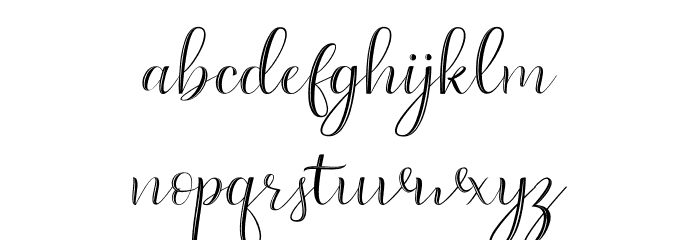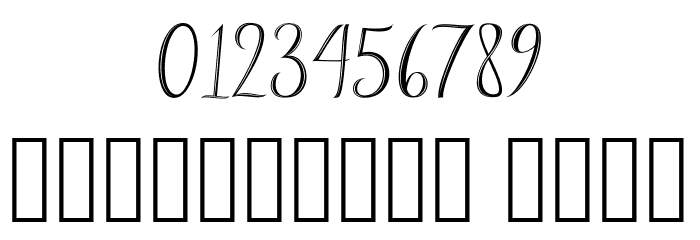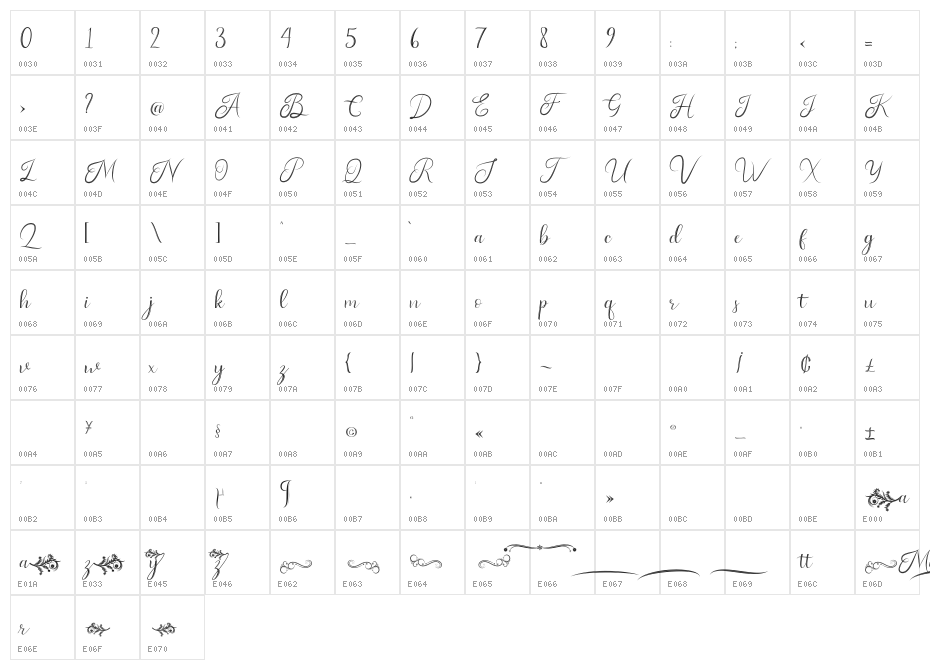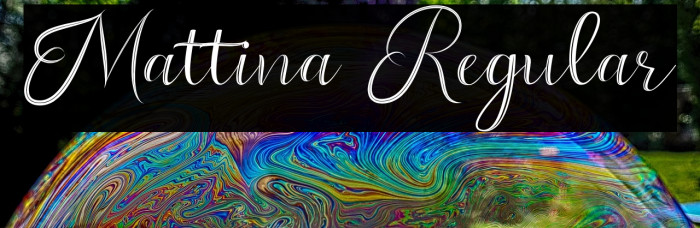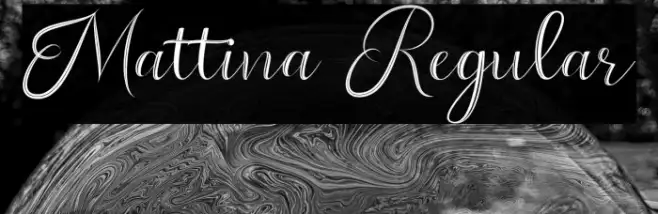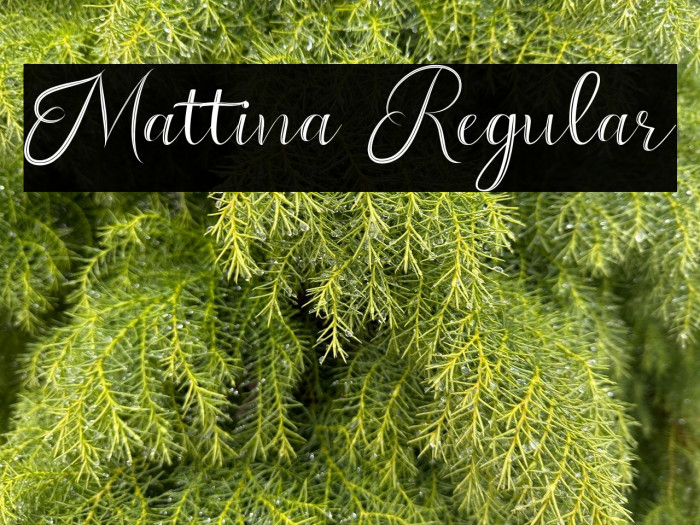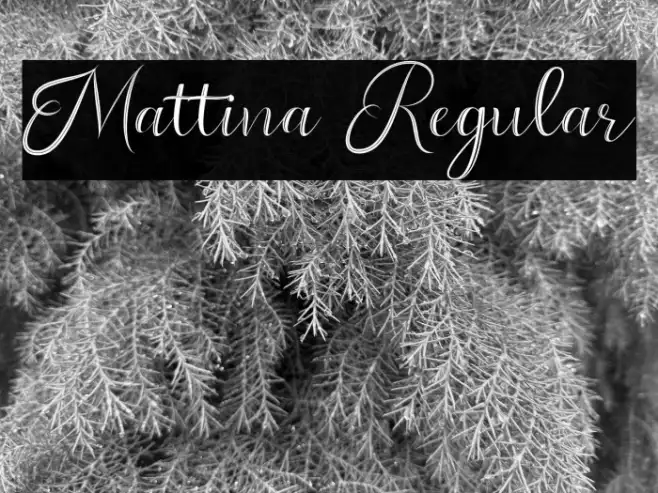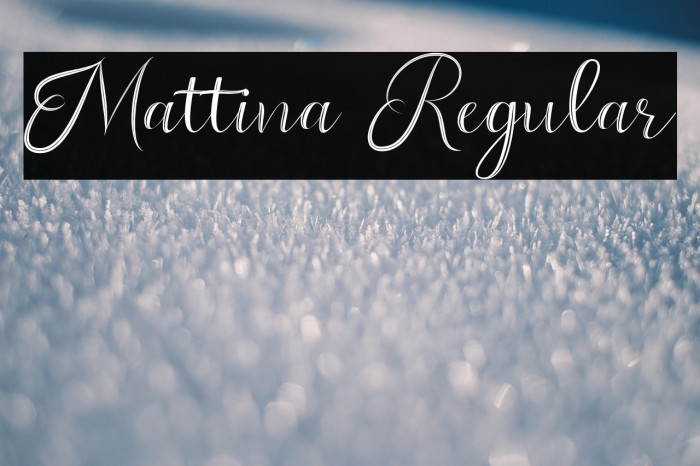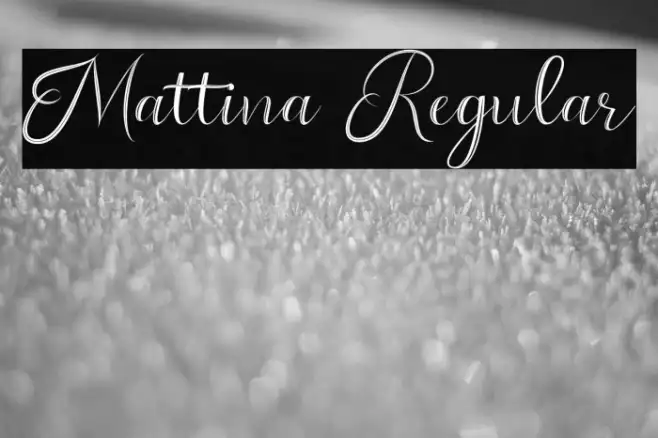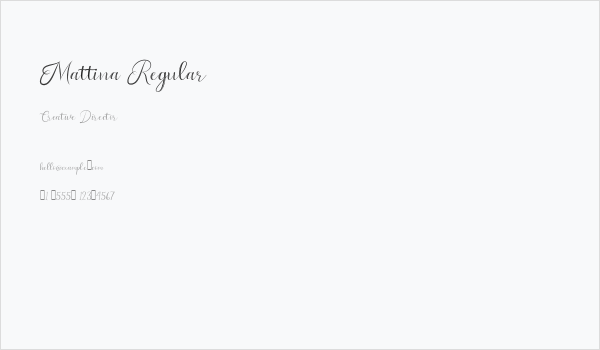
Mattina Regular Font
This elegant script font features flowing, cursive letterforms with a refined and sophisticated appearance. The uppercase letters exhibit graceful loops and swashes, while the lowercase characters maintain a consistent, fluid style that enhances readability. The numerals are designed with a similar flair, ensuring a cohesive look across all characters. The font's delicate strokes and balanced proportions make it suitable for a variety of design applications. Its overall aesthetic is both classic and modern, offering versatility for creative projects.
An elegant script font with flowing, cursive letterforms and refined style.
- Proposed Projects: Ideal for wedding invitations, elegant branding, greeting cards, and upscale packaging.
- Overall Style: Classic
- Use Case: Logos, Invitations, Decorative text